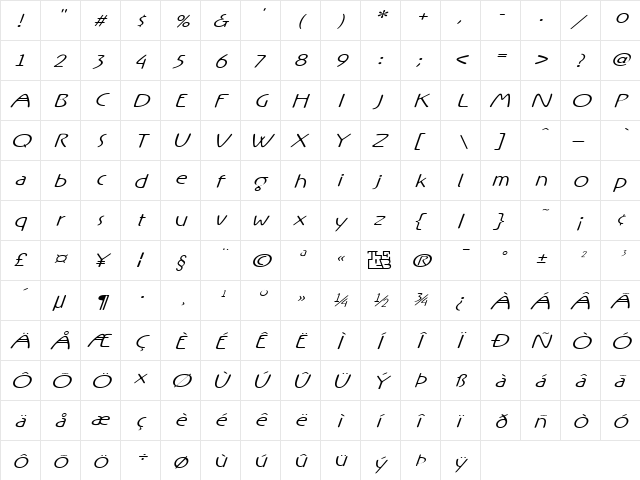
Rx-OneOne Regular
| Designer | Apostrophe (') |
Design Context for Rx-OneOne Typeface
Rx-OneOne channels digital-age aesthetics through its sharp, structured letterforms — ideal for brands that want to signal innovation.